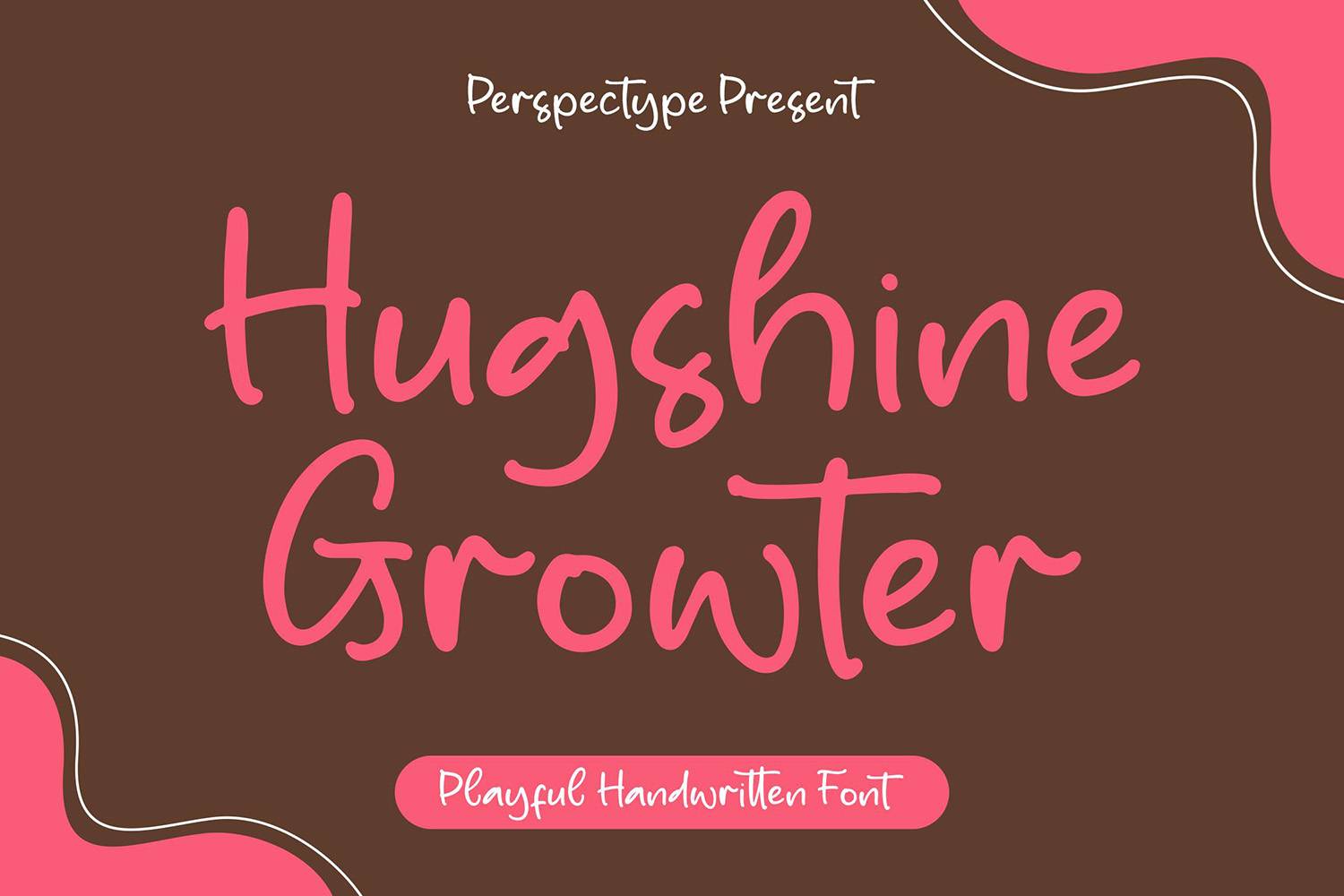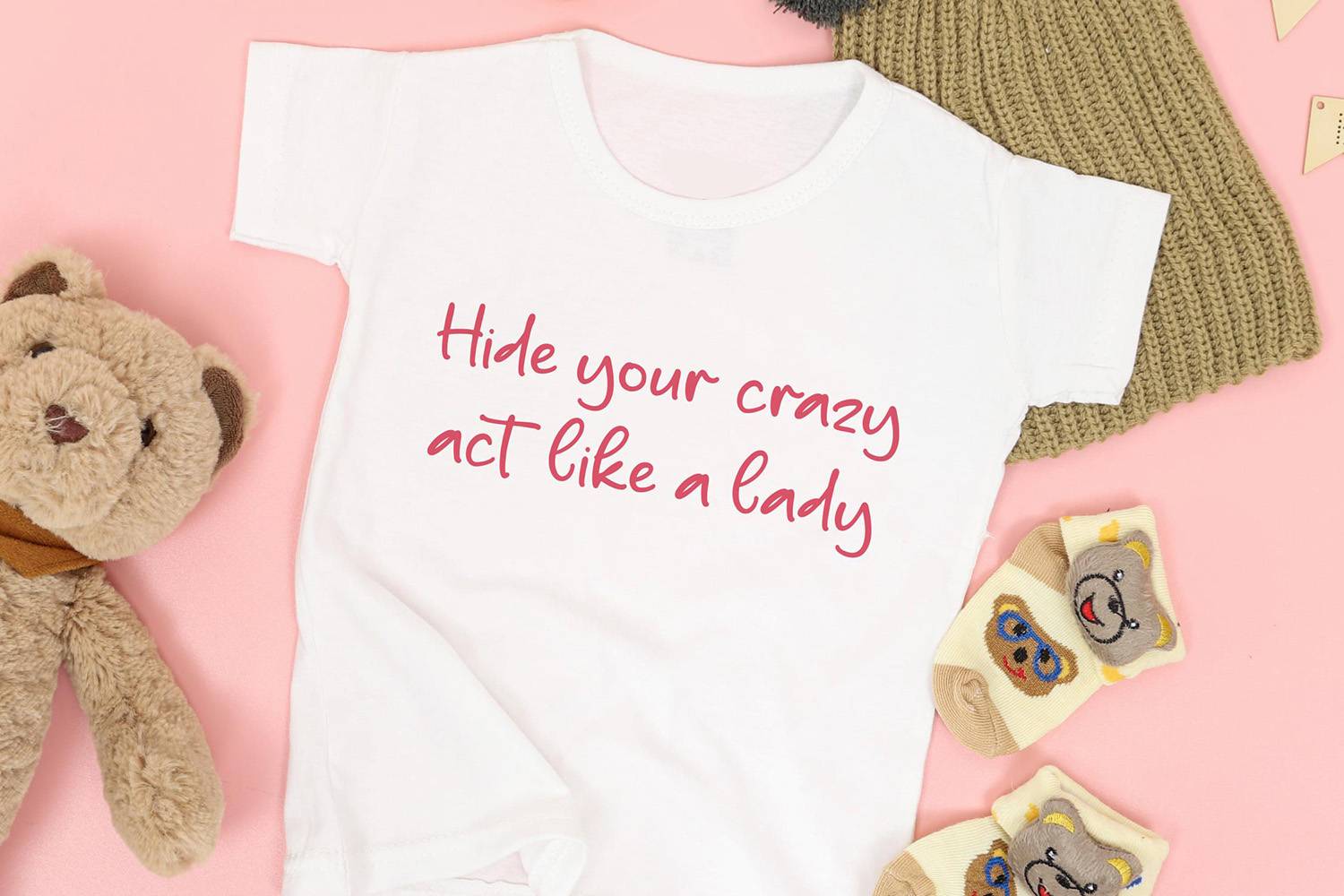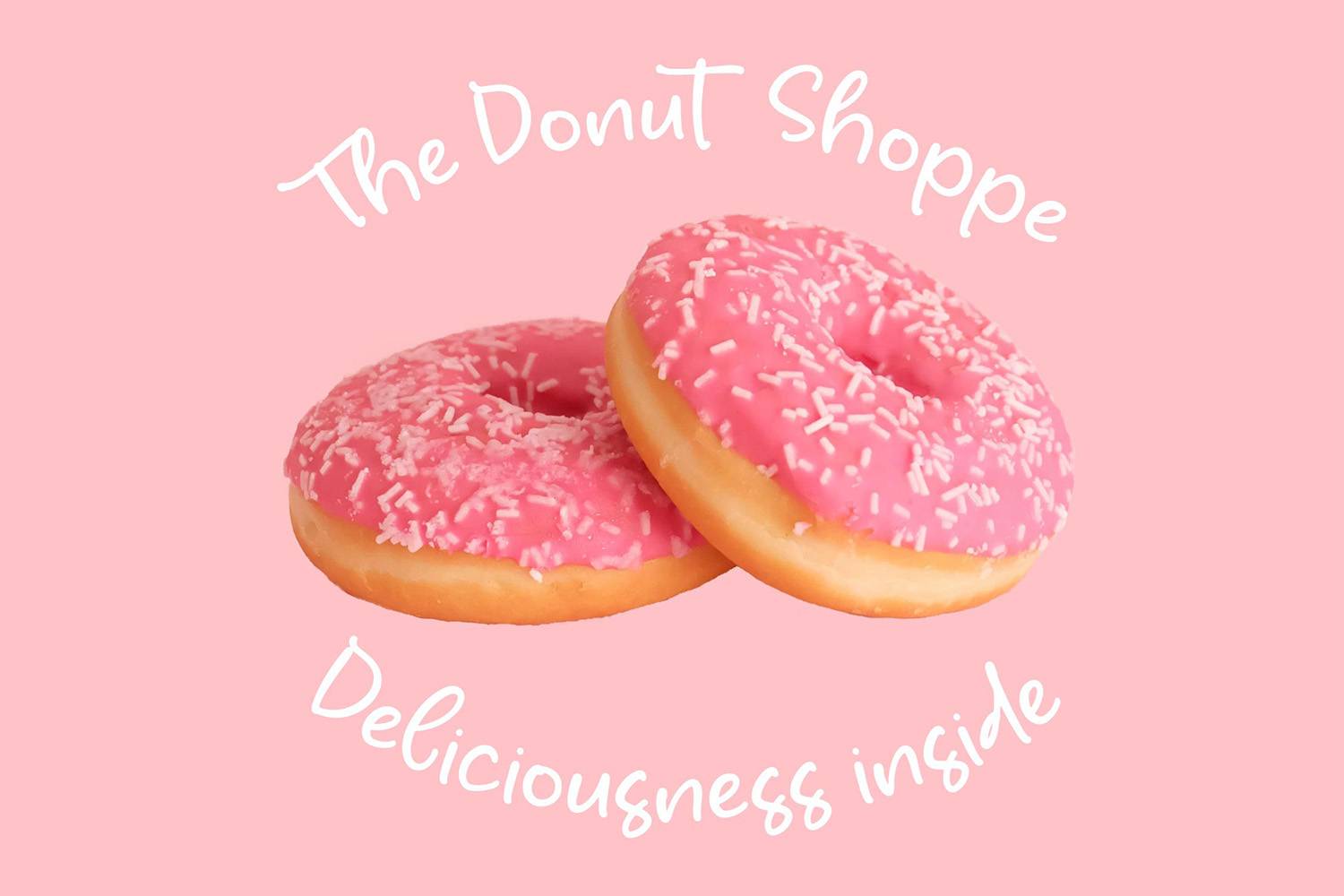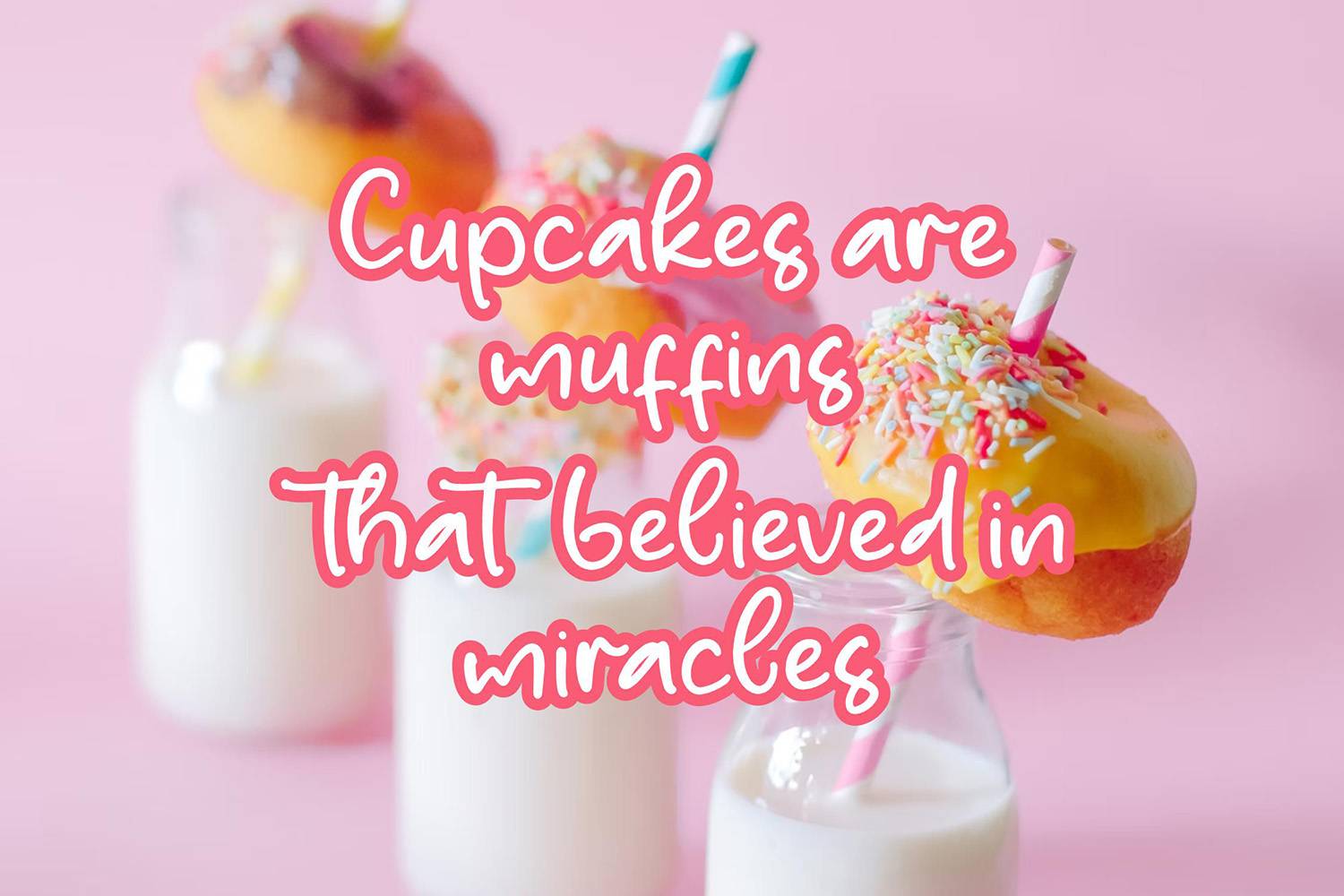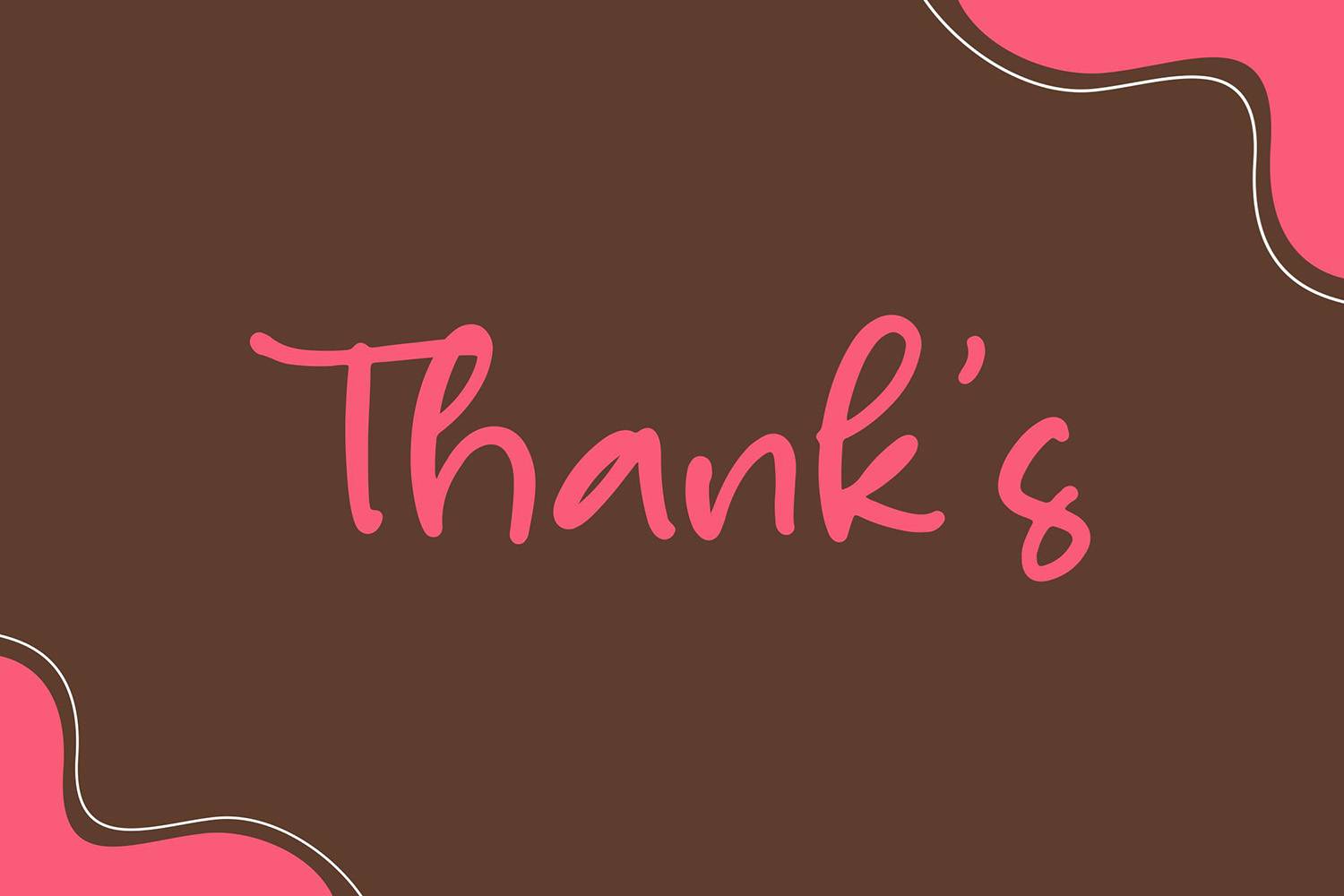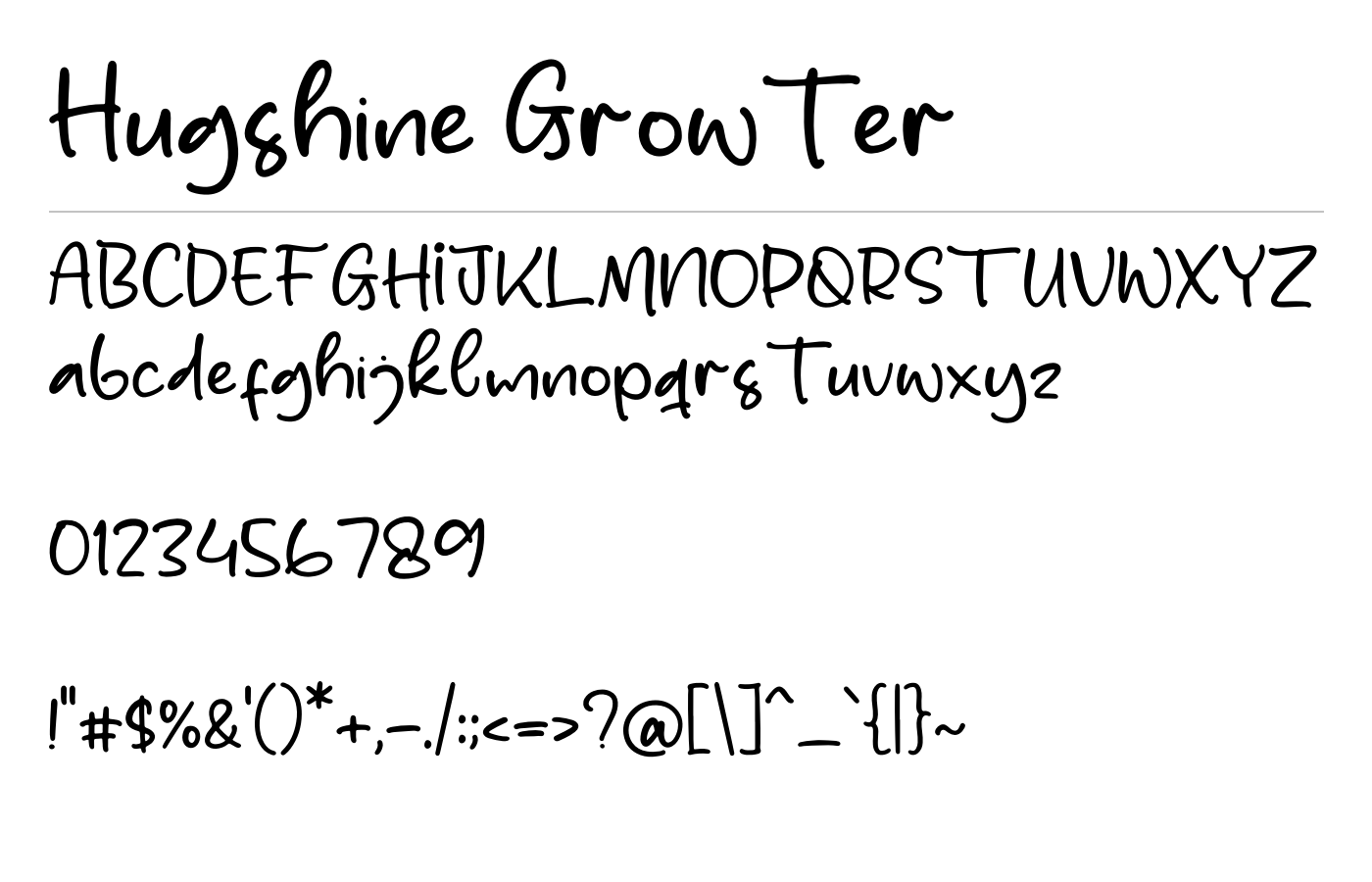
Hugshine Growter is a casual, handwritten sans serif font with a relaxed and playful vibe. Its uneven strokes and tall x-height create a friendly, approachable feel, making it ideal for informal, creative, or personal projects like greeting cards, children’s books, or social media graphics. This font works best in designs that want to convey warmth and personality with a charming, handwritten touch.
Hugshine Growter Font
About Hugshine Growter Font